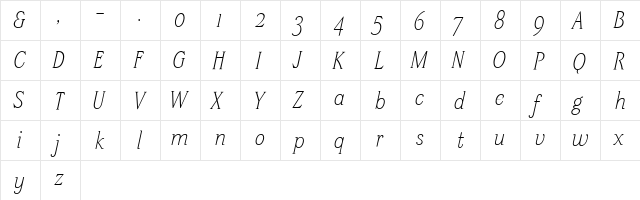
SteppITC-LightItalic xPDF Regular Font Preview
Design Context for SteppITC-LightItalic xPDF Typeface
SteppITC-LightItalic xPDF offers clean, dependable letterforms without strong stylistic allegiance, making it a practical choice for designers who need flexibility. The slanted form adds forward momentum and visual energy. Its slender proportions lend an understated elegance to any composition.
Pro Tip: Try SteppITC-LightItalic xPDF for annotation and caption copy alongside an upright companion — the contrast in angle creates a dynamic but ordered typographic system.